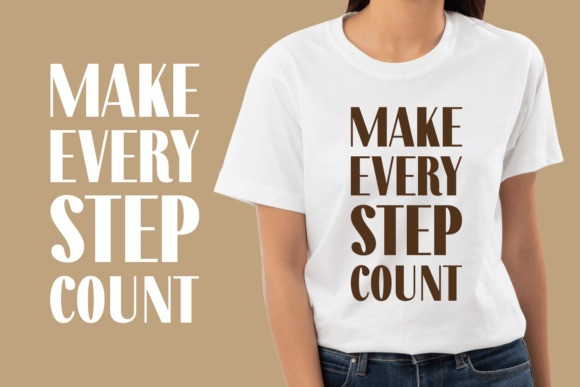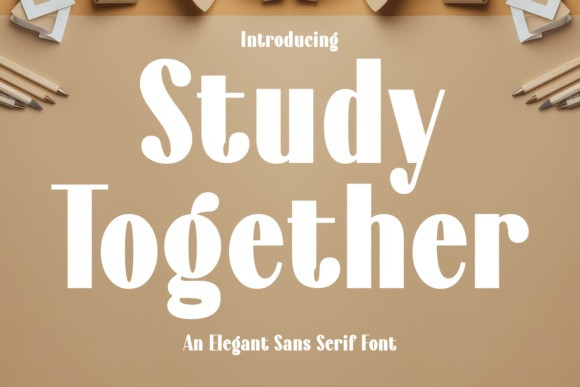
Study Together Font
Study Together Font, an elegant sans serif font. The friendly and creative “back-to-school” theme perfectly complements the font’s modern, approachable, and stylish character.